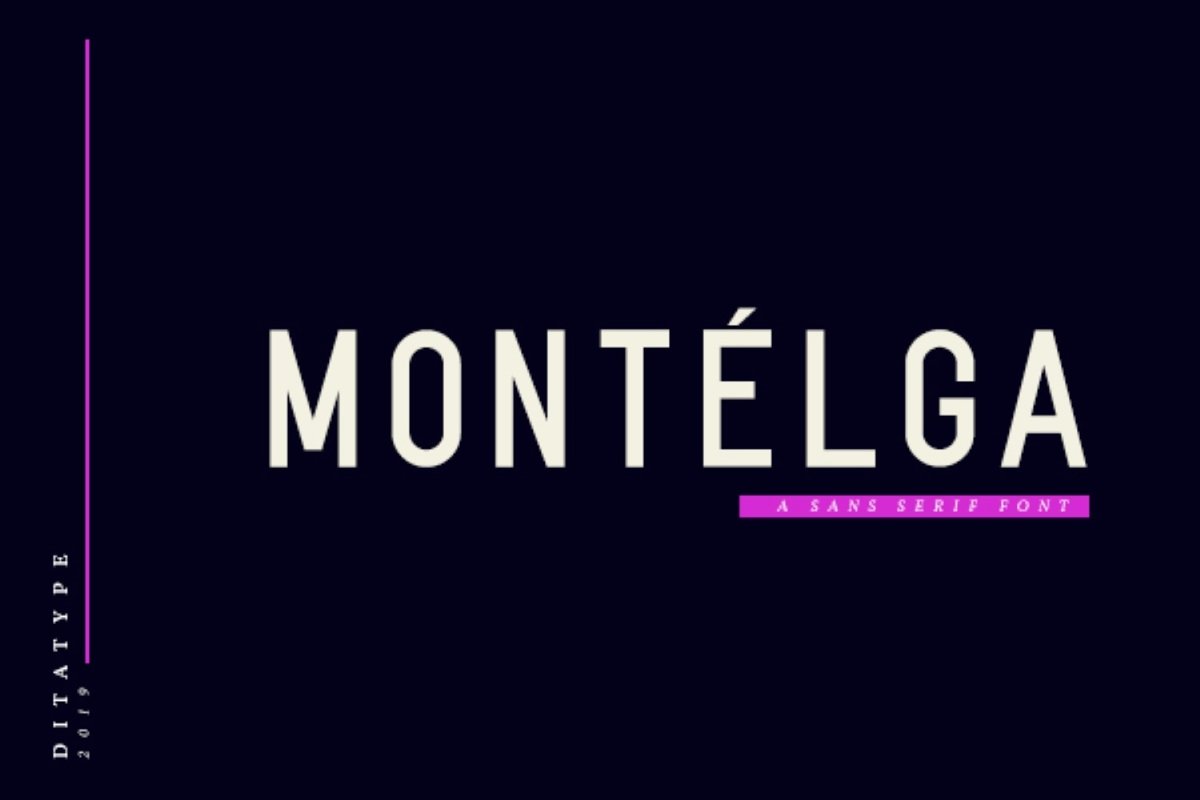
Montelga Sans
Montelga
Montelga is a simple and casual sans serif font with an undeniably clean feel. With its neat and beautiful arrangement of letters, this typeface will look outstanding in both formal and non-formal designs.
• Accents (Multilingual characters)
• Numerals and Punctuation (OpenType Standard)